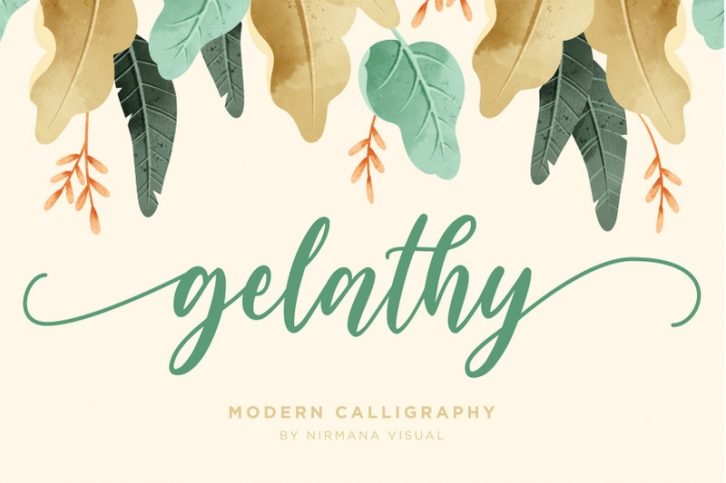
Gelathy - Modern Calligraphy FONT Download
Gelathy is a Beautiful script font carefully created with a touch of Romantic.
This is a beautiful combination of timeless elegance and authentic calligraphy,
It has lowercase beginning and ending swashes.
Following international symbols :
áâàäåãæçéêèëíîìïıñóôòöõøœšßúûùüýÿž
ÁÂÀÄÅÃÆÇÉÊÈËÍÎÌÏÑÓÔÒÖÕØŒŠÚÛÙÜÝŸ